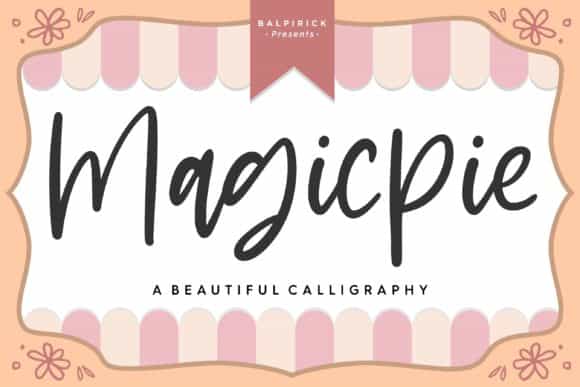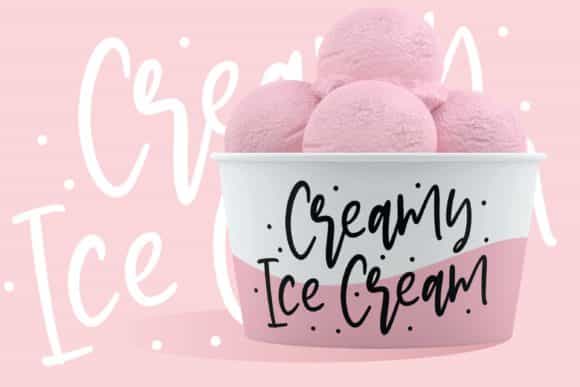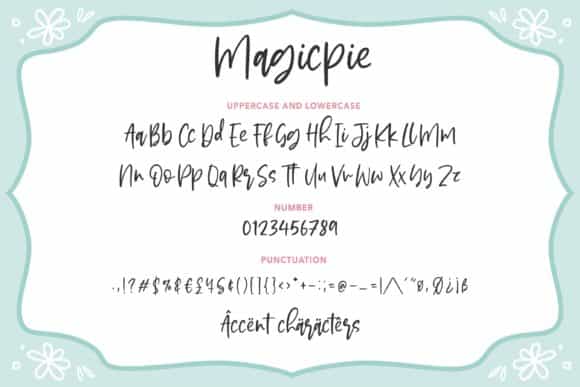
Presents to you Magicpie, a script font that gives your works a genuine touch. The whimsical style is more interesting and adds a fun factor to any design that you incorporate it into. Free your imagination with the amazing Magicpie!